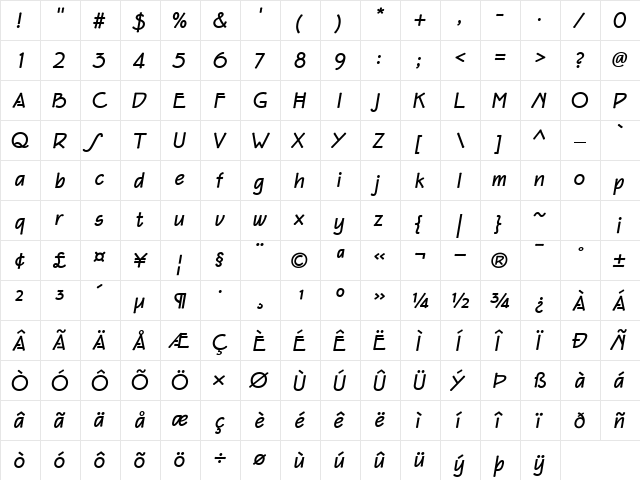
EaglefeatherInformal-Bol RomanItalic Font Preview
EaglefeatherInformal-Bol RomanItalic
EaglefeatherInformal-Bol RomanItalic Font Details
Design Context for EaglefeatherInformal-Bol Typeface
EaglefeatherInformal-Bol offers clean, dependable letterforms without strong stylistic allegiance, making it a practical choice for designers who need flexibility. The dynamic lean of this cut emphasises speed and emphasis in any layout.
Pro Tip: Try EaglefeatherInformal-Bol for annotation and caption copy alongside an upright companion — the contrast in angle creates a dynamic but ordered typographic system.